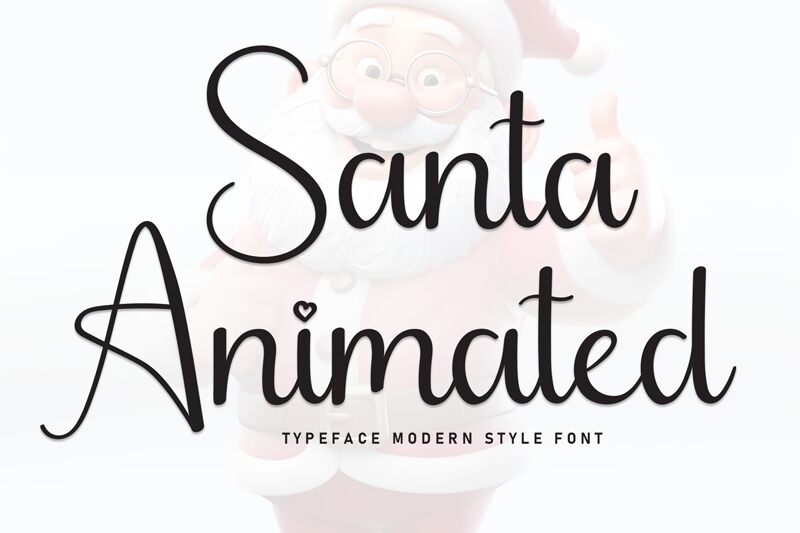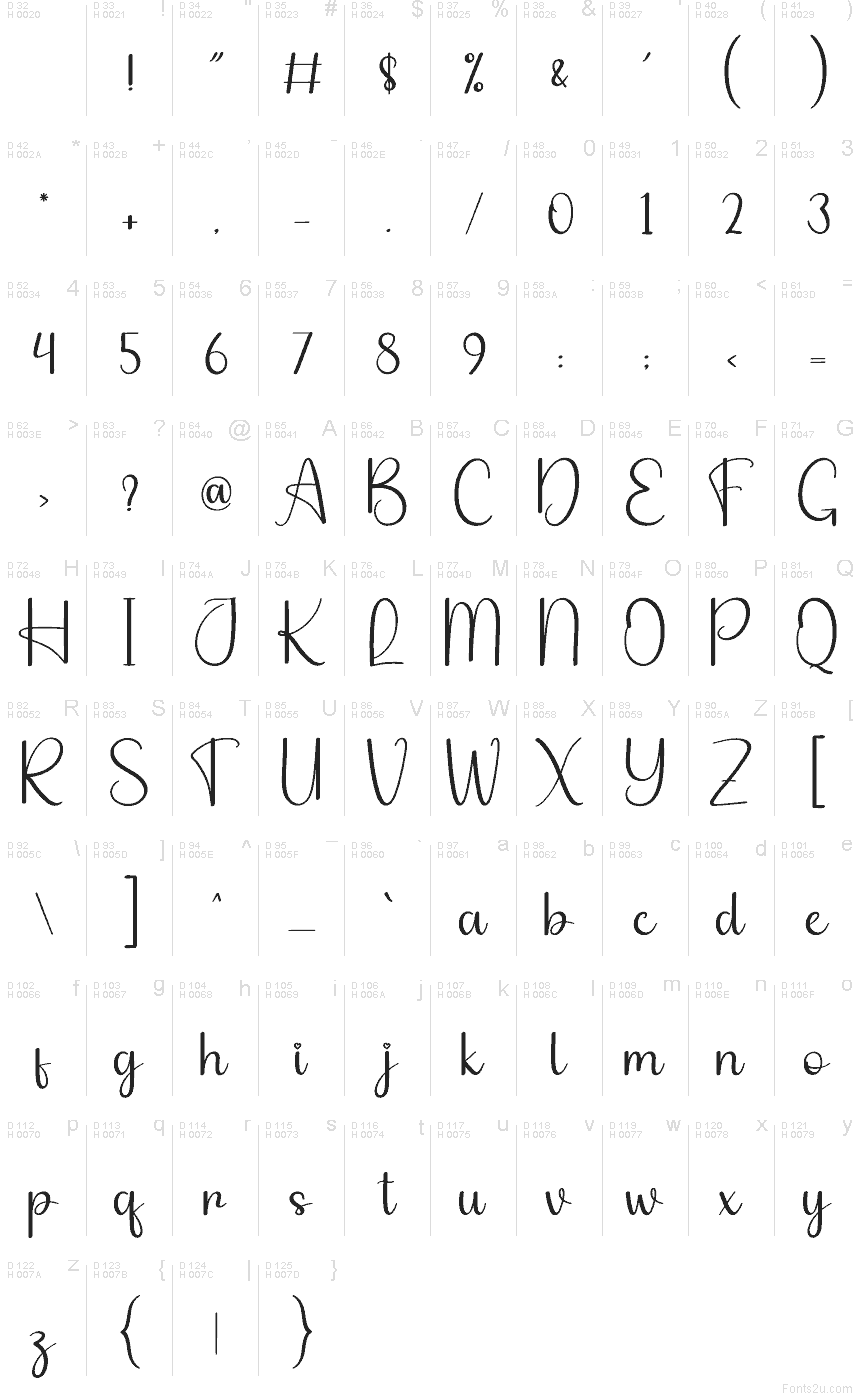
Santa Animate
Santa Animate font by Andi Moz is a free brush script typeface with the warmth of a hand-written holiday note. Long looping strokes, soft curves, and that tiny heart detail above the “i” give it a cozy, storybook feel, like ink brushed onto textured paper. The letters connect with an easy, flowing rhythm, keeping things legible while still feeling playful and a little bit magical.
Using Santa Animate, this free font shines on Christmas cards, gift tags, kids’ party invitations, festive logos, seasonal social posts, and packaging for sweets or handmade products. Its friendly, bouncy script brings personality without feeling messy, so it still photographs and prints cleanly. For balance, pair Santa Animate with a simple sans serif for body text and let this brush script stay in the spotlight at larger sizes.